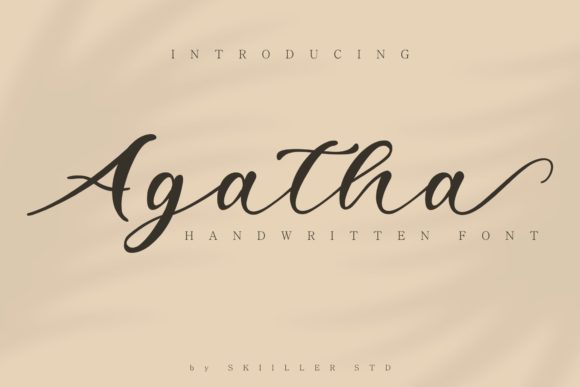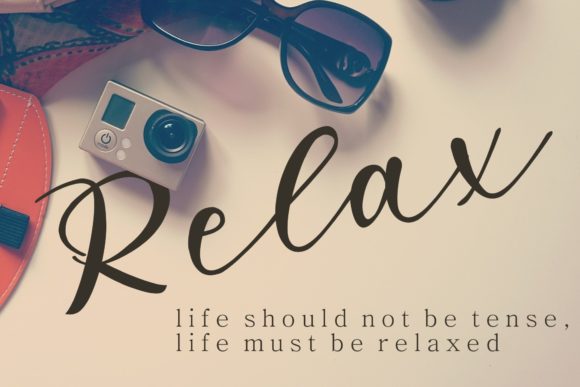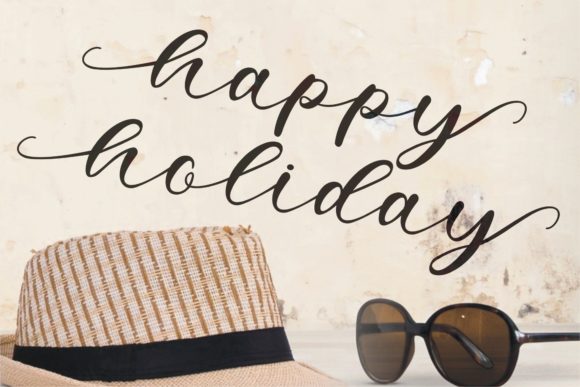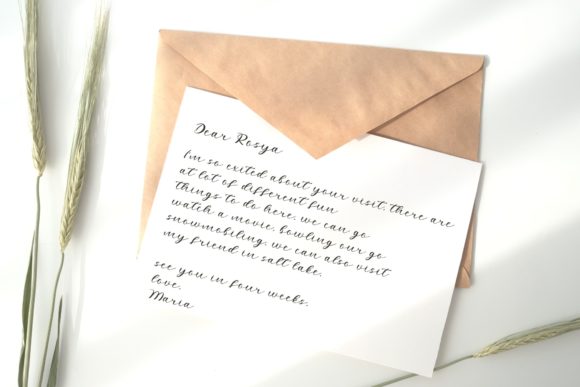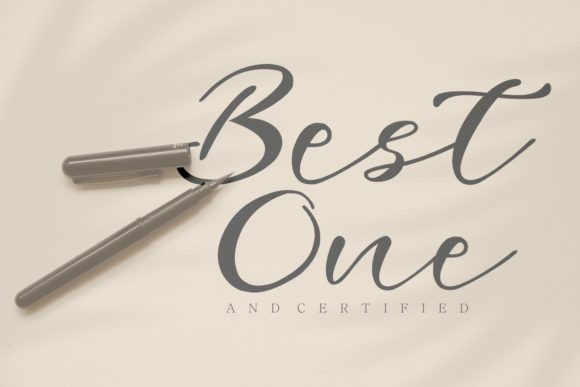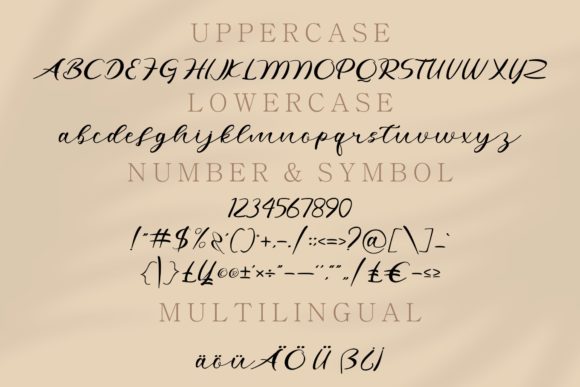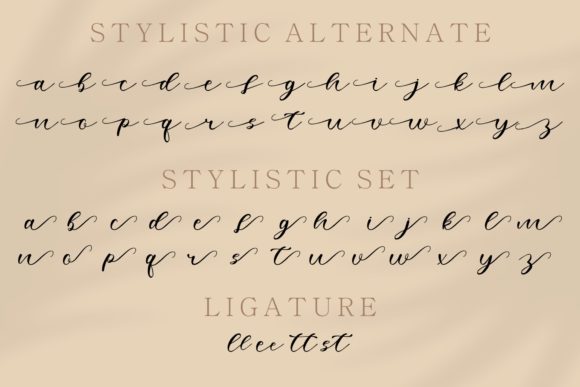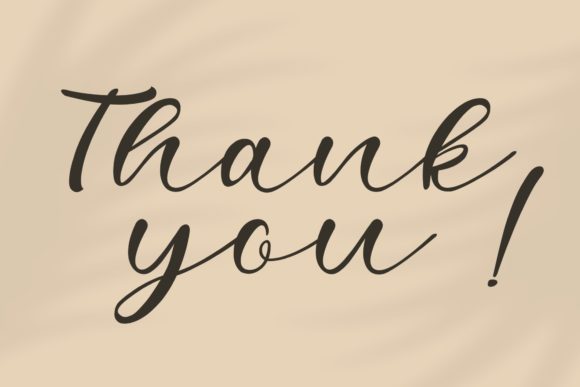
HomeScript FontsAgatha Font Script Fonts Agatha Font FacebookXPinterestWhatsApp Agatha Font Poster 2 Agatha Font Poster 3 Agatha Font Poster 4 Agatha Font Poster 5 Agatha Font Poster 6 Agatha Font Poster 7 Agatha Font Poster 8 About Agatha Font Agatha is an equally beautiful and minimalist script with a bold vibe. Get inspired by its unique style! DOWNLOAD NOW People also explored Mothenary Font Best Deals Font Marlina Font Hello Mellow Font Stay Cool Font Vaneisya Font Amsterdam Font Plectrum Snowdrift Font 304 0 TagsAgatha Font Previous articleActivity FontNext articleAchila Font LEAVE A REPLY Cancel reply Comment: Please enter your comment! Name:* Please enter your name here Email:* You have entered an incorrect email address! Please enter your email address here Website: Save my name, email, and website in this browser for the next time I comment. Personal Use Free Hubbies Personal Use Free Read more about this font Wintersoul Personal Use Free Read more about this font Diland Personal Use Free Read more about this font Joystix Monospace Personal Use Free Read more about this font BLOG Best Fonts for YouTube Videos: Make Your Thumbnails Stand Out Best Fonts for YouTube Videos: Make Your Thumbnails Stand Out Choosing the right font can make a massive difference in how your YouTube videos perform.... Modern Sans-Serif Fonts That Brands Love in 2025 Elegant Wedding Invitation Fonts – Handwritten & Script Fonts Free Fonts Risk: Why Free Fonts Can Be Dangerous for Designers